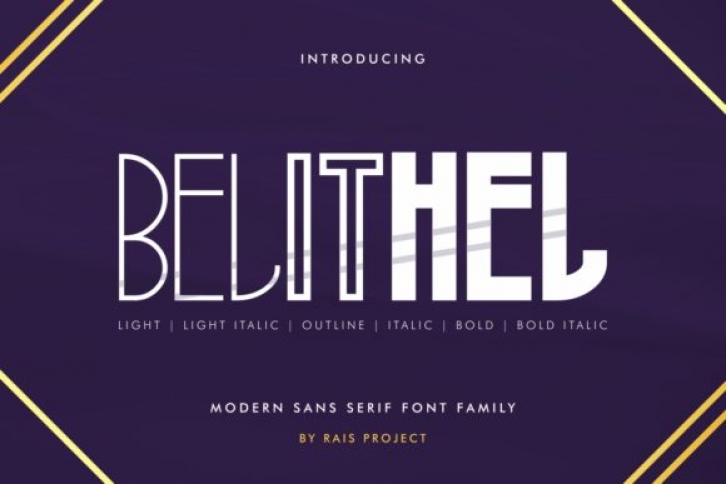
Belithel is a modern, organic sans serif font. Whether you’re using it for crafting, digital designing, presentations or greeting cards making, it’s perfect!